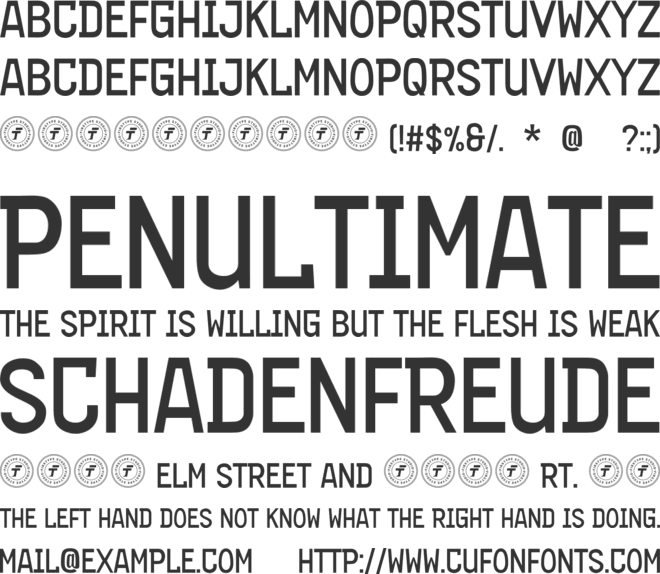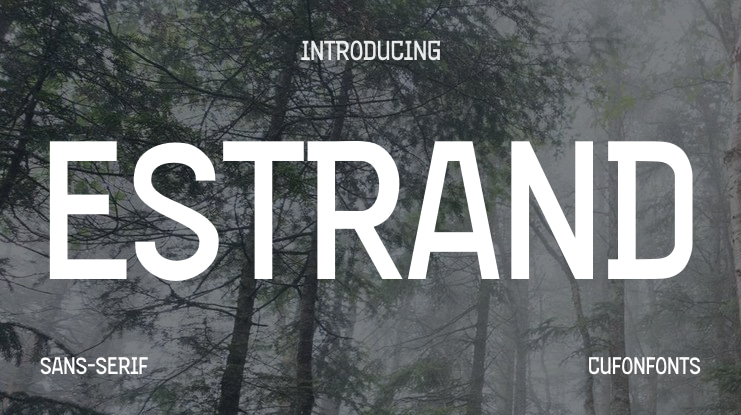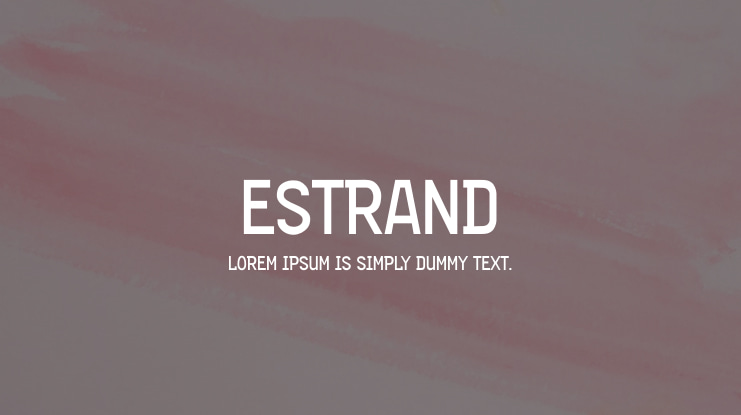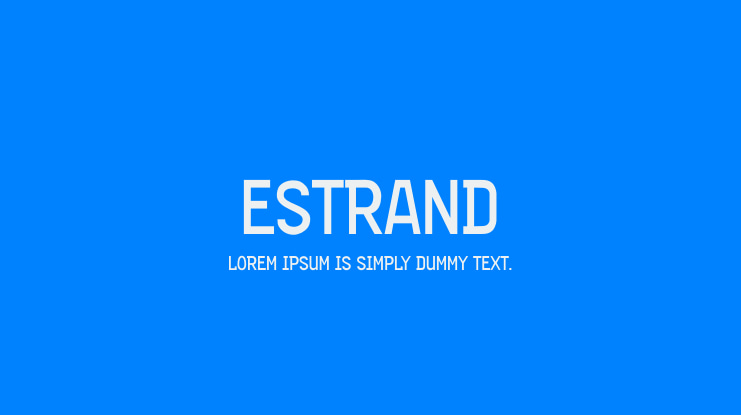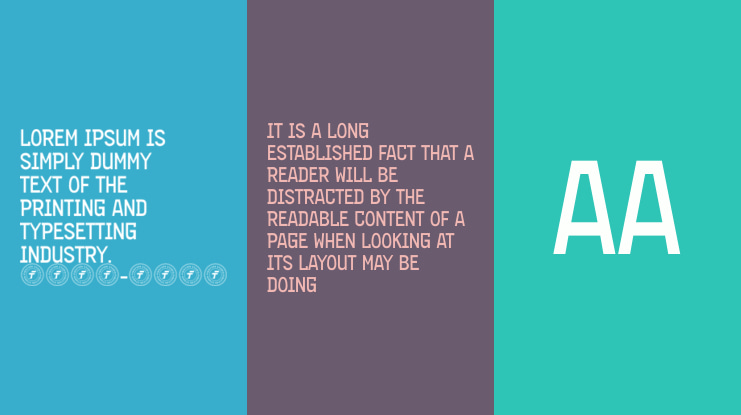
Estrand Font
Estrand is a contemporary sans-serif font that has been meticulously crafted to be durable and versatile. It is specifically designed for industrial and outdoor applications such as road signage and traffic signage. With its strong letterform anatomy, this font guarantees clarity even in challenging conditions.
Estrand is a sans-serif typeface that exudes modern simplicity and straightforwardness. Its clean lines and uncluttered design make it an excellent choice for a wide range of design projects.
This font is perfect for industrial and outdoor use due to its durability and legibility. Whether it is used on road signs, traffic signals, or outdoor branding, Estrand ensures that the message is delivered clearly.
What sets Estrand apart is its strong and clear letterforms. Even in adverse conditions such as low visibility or extreme weather, this font remains reliable, ensuring effective communication of your message.
Estrand is a versatile and dependable font that can be seamlessly integrated into various design contexts. It is engineered to excel in all applications, whether it be for product branding or informational signage.
By choosing Estrand, you are not just selecting a font, but you are also elevating your typography to a level of modern durability and clarity.
If you are looking to enhance your message, explore the potential of Estrand in your next design project. Its durability and versatility will surely make a significant impact.
Estrand's combination of modern simplicity and robust performance guarantees that it will shine in the most demanding settings, from industrial branding to outdoor signage.